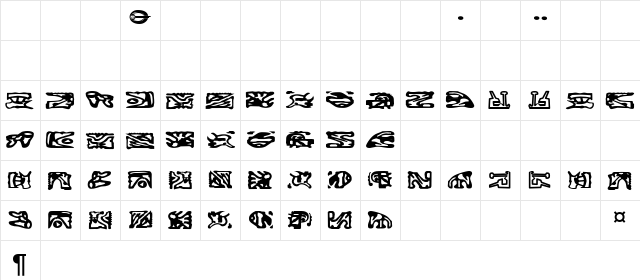
ST Bajoran Ideogram Regular
Design Context for ST Bajoran Ideogram Typeface
ST Bajoran Ideogram is a composed and adaptable typeface that performs quietly and consistently across a wide range of design contexts.